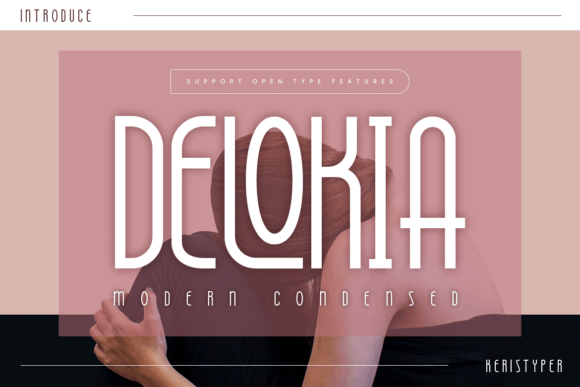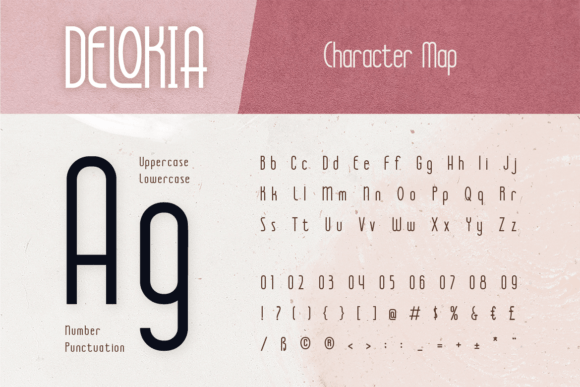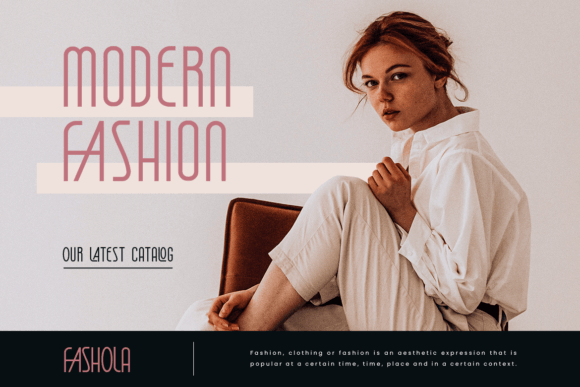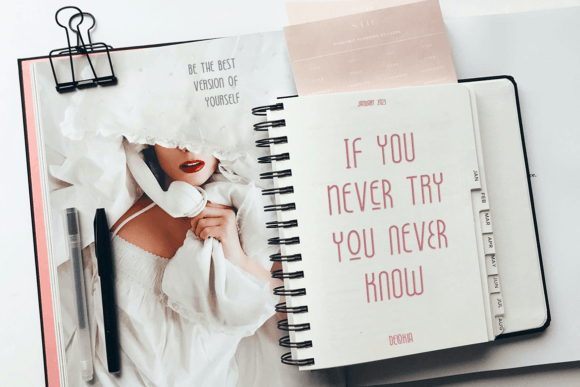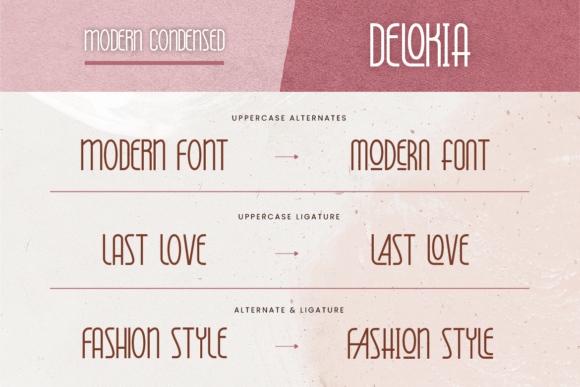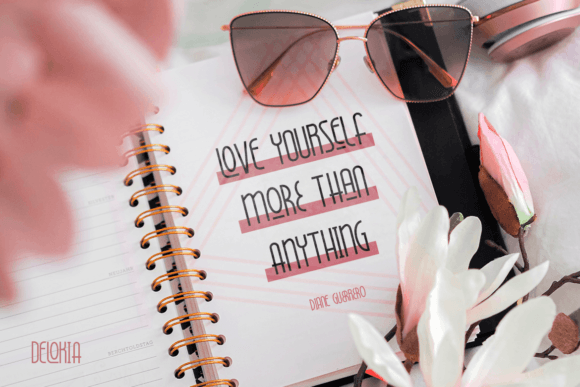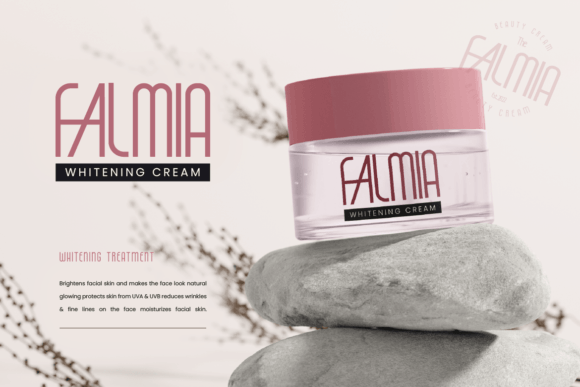
The Perfect Blend of Style and Legibility: Delokia Font
Have you ever found yourself staring at a blank canvas, searching for the perfect font to bring your creative vision to life? It’s that moment of frustration and excitement when you know you’re on the cusp of something special. For designers, finding the right font can be the difference between a mediocre design and a truly stunning one.
Enter the Delokia Font, a condensed font that exudes visual elegance and sophistication. With its smooth curves and refined lines, this font is the perfect choice for a wide range of applications, from logo design to movie titles and book covers. Its versatility makes it a valuable addition to any designer’s toolkit, offering a unique blend of style and legibility that’s sure to elevate any project.
Delokia Font Key Features
- Font Family: Delokia Font is a sans-serif font family, designed for digital use.
- Character Set: Delokia Font supports a wide range of languages, including Latin, Cyrillic, and Greek scripts.
- Unique Characteristics: Delokia Font features a modern, clean design with subtle rounded edges, making it ideal for corporate branding, digital interfaces, and publishing.
Designer Review: Delokia Font
Delokia Font is a stylish, sans-serif typeface that boasts a modern aesthetic, making it perfect for contemporary designs. ✨ The font’s clean lines, geometric shapes, and balanced proportions create a sophisticated look that is sure to elevate any project.
Some of the font’s key features include:
- High x-height, making it easily readable even at smaller font sizes
- Wide range of weights, from light to bold, allowing for versatility in design
- Support for various languages, making it a great choice for global projects
- Scalable vector graphics (SVG) files, ensuring crisp and clear typography at any size
- ⚠️ Delokia Font may not be the best choice for projects requiring a more traditional or serif typeface
- ⚠️ Some users may find the font’s geometric shape and modern feel to be too bold or overwhelming for certain designs
Overall, Delokia Font is a solid choice for designers looking for a modern, clean typeface. Its versatility and high-quality features make it a great addition to any design library. While it may not be the perfect fit for every project, it’s definitely worth considering for contemporary designs that require a sophisticated and stylish touch.
Tips for Getting the Most Out of Delokia Font
To get the most out of Delokia Font, use it in creative ways such as:
- Body text for a unique look
- Emphasizing key points in a presentation
Delokia Font is commonly used in:
- Brand identities and logos
- Marketing materials and advertisements
Alternatives to Delokia Font
Poppins Font
Poppins Font is a modern sans-serif font designed by Indian type foundry, Indian Type Foundry. It is ideal for use in digital products, websites, and apps where a clean and minimalist design is required. Poppins Font has a similar feel to Delokia Font, but it has a more rounded and friendly appearance, making it suitable for use in various contexts, including corporate branding and editorial content.
Montserrat Font is a sans-serif font designed by Julieta Ulanovsky. It is inspired by the urban landscape of Buenos Aires and is perfect for use in digital and print materials where a bold and edgy look is desired. Montserrat Font has a more geometric and condensed appearance compared to Delokia Font, making it ideal for use in headlines, titles, and other display typography.
Inter Font is a sans-serif font designed by Rasmus Andersson. It is a modern and highly legible font that is designed to work well in a wide range of contexts, from digital products to print materials. Inter Font has a more neutral and balanced appearance compared to Delokia Font, making it suitable for use in various contexts, including corporate branding, editorial content, and technical documentation.